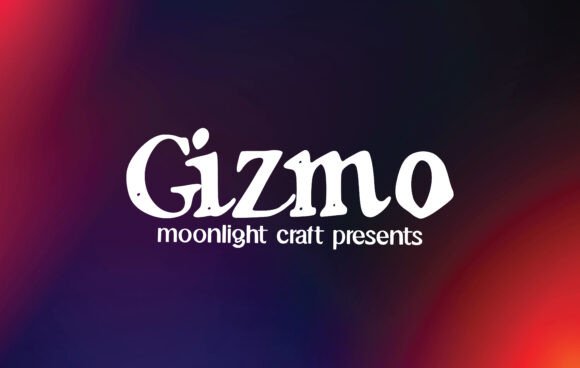
Gizmo Font: Elevate Your Creative Ideas with this Lovely Handwritten Font
In the world of typography, fonts play a crucial role in conveying messages, expressing emotions, and creating visual identities. Among the numerous fonts available, Gizmo Font stands out as a lovely and beautiful handwritten font that has the potential to take your creative ideas to the highest level. In this article, we’ll explore the features, benefits, and uses of Gizmo Font, and why it’s an excellent choice for creating eye-catching logos, branding, and quotes.
What Makes Gizmo Font Special?
Gizmo Font is a unique and elegant handwritten font that boasts a distinctive character. Its beautiful and flowing strokes make it perfect for creating visually appealing designs that capture the audience’s attention. The font’s features include:
- Handwritten style: Gizmo Font has a natural, handwritten look that adds a personal touch to your designs.
- Unique character: The font’s distinctive character makes it stand out from other fonts, ensuring your designs are memorable and recognizable.
- Elegant strokes: The font’s flowing strokes create a sense of elegance and sophistication, making it suitable for high-end branding and designs.
Why Choose Gizmo Font for Your Designs?
Gizmo Font is an incredibly versatile font that can be used for a wide range of design projects. Here are some reasons why you should consider using Gizmo Font:
- Eye-catching logos: Gizmo Font is perfect for creating stunning logos that capture the essence of your brand.
- Branding: The font’s elegant and sophisticated style makes it an excellent choice for branding projects, such as business cards, letterheads, and packaging.
- Quotes and typography: Gizmo Font is ideal for creating inspiring quotes, posters, and typographic designs that showcase your message in a visually appealing way.
The Benefits of Using Gizmo Font
Using Gizmo Font in your designs offers numerous benefits, including:
- Improved readability: The font’s clear and elegant strokes ensure that your message is conveyed clearly and effectively.
- Increased brand recognition: Gizmo Font’s unique character helps create a distinctive visual identity for your brand, making it more recognizable.
- Enhanced creativity: The font’s versatility and expressiveness inspire creativity, allowing you to experiment with different design ideas.
Tips for Using Gizmo Font Effectively
To get the most out of Gizmo Font, follow these tips:
- Use it sparingly: Use Gizmo Font as a headline or accent font to create visual interest and emphasis.
- Experiment with colors: Try pairing Gizmo Font with different colors to create a unique and eye-catching design.
- Mix and match: Combine Gizmo Font with other fonts to create a visually appealing and harmonious design.
In conclusion, Gizmo Font is a beautiful and versatile handwritten font that can elevate your creative ideas to new heights. Its unique character, elegant strokes, and improved readability make it an excellent choice for creating eye-catching logos, branding, and quotes. By following the tips outlined in this article, you can unlock the full potential of Gizmo Font and take your designs to the next level.